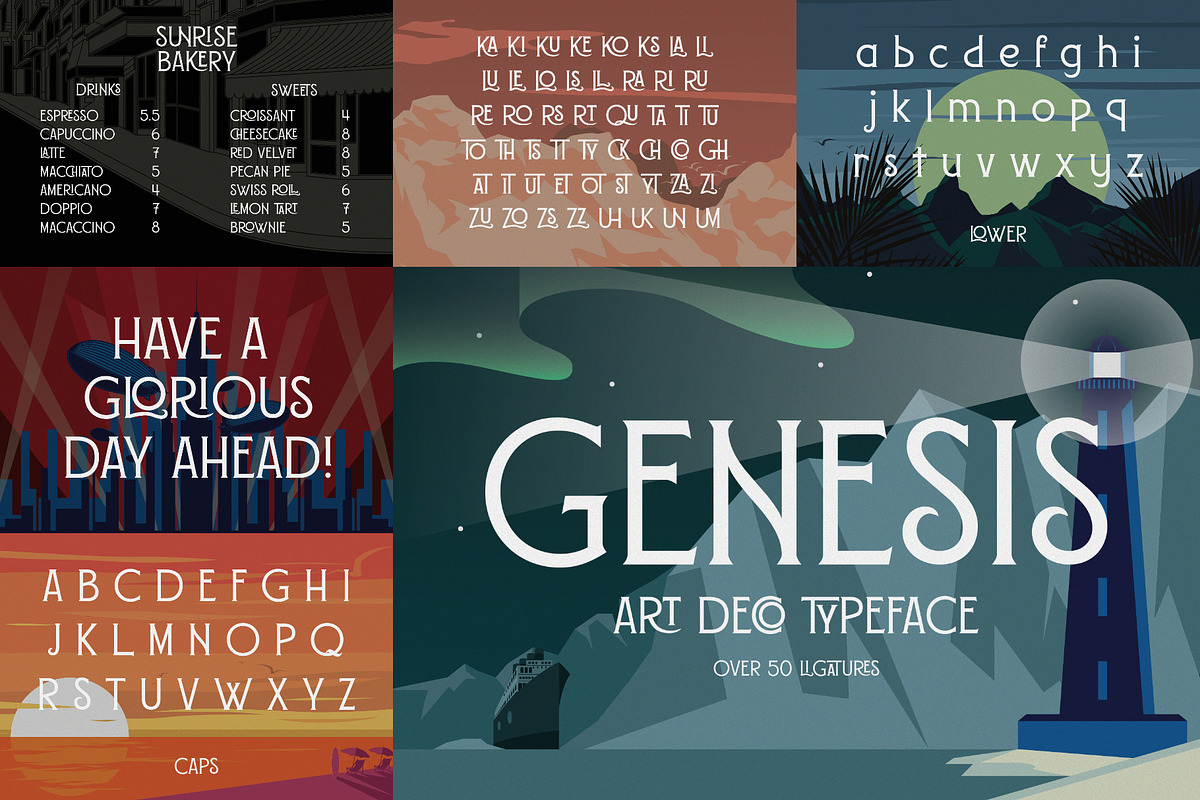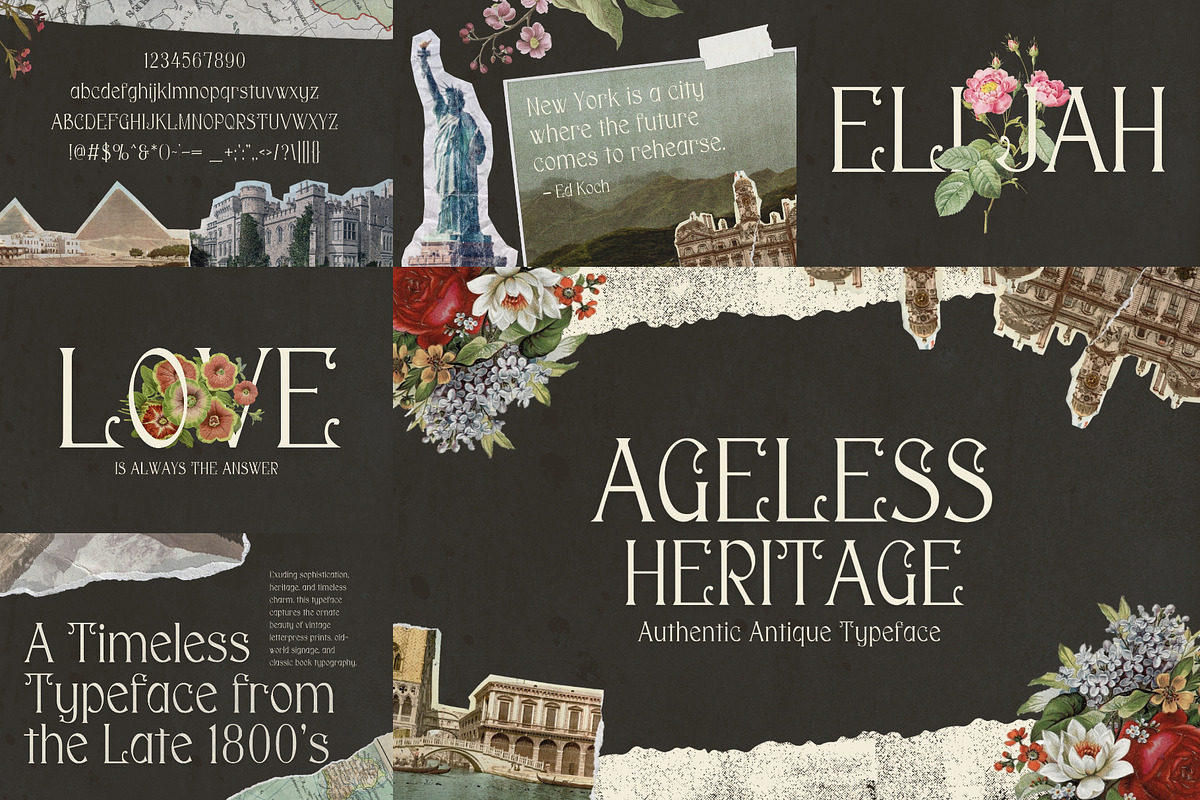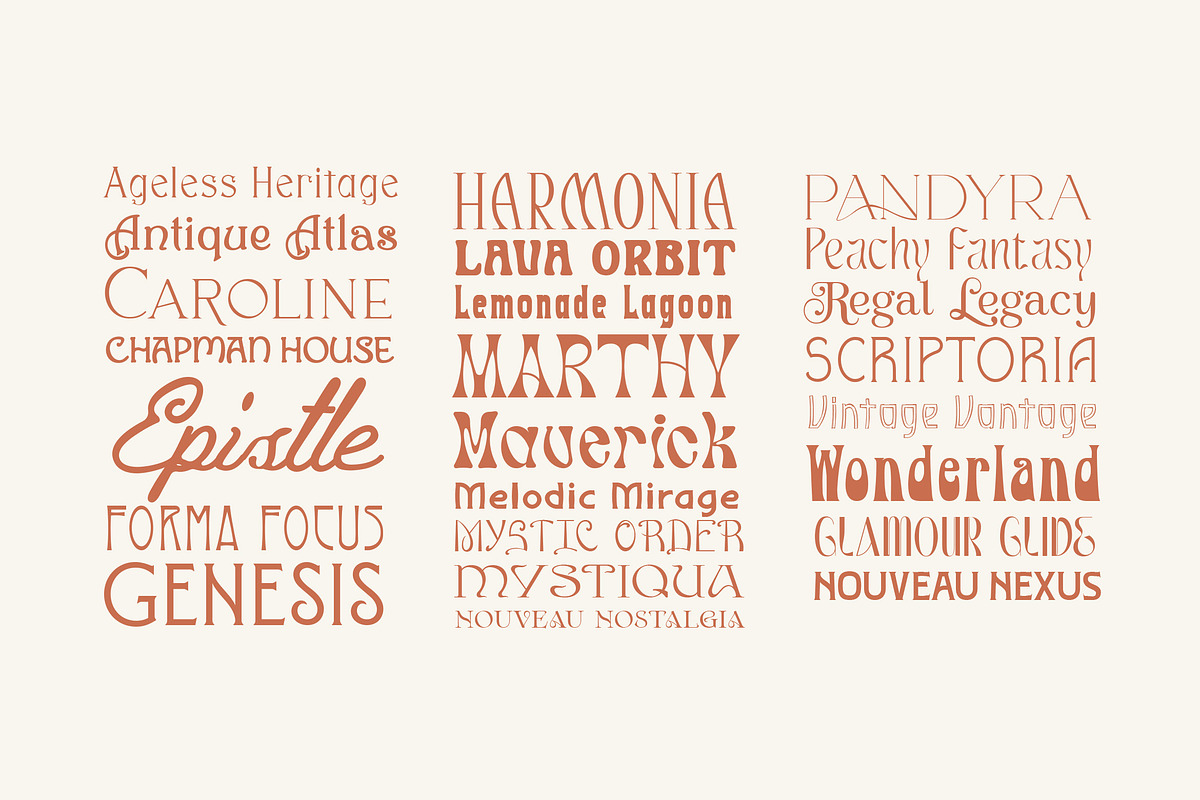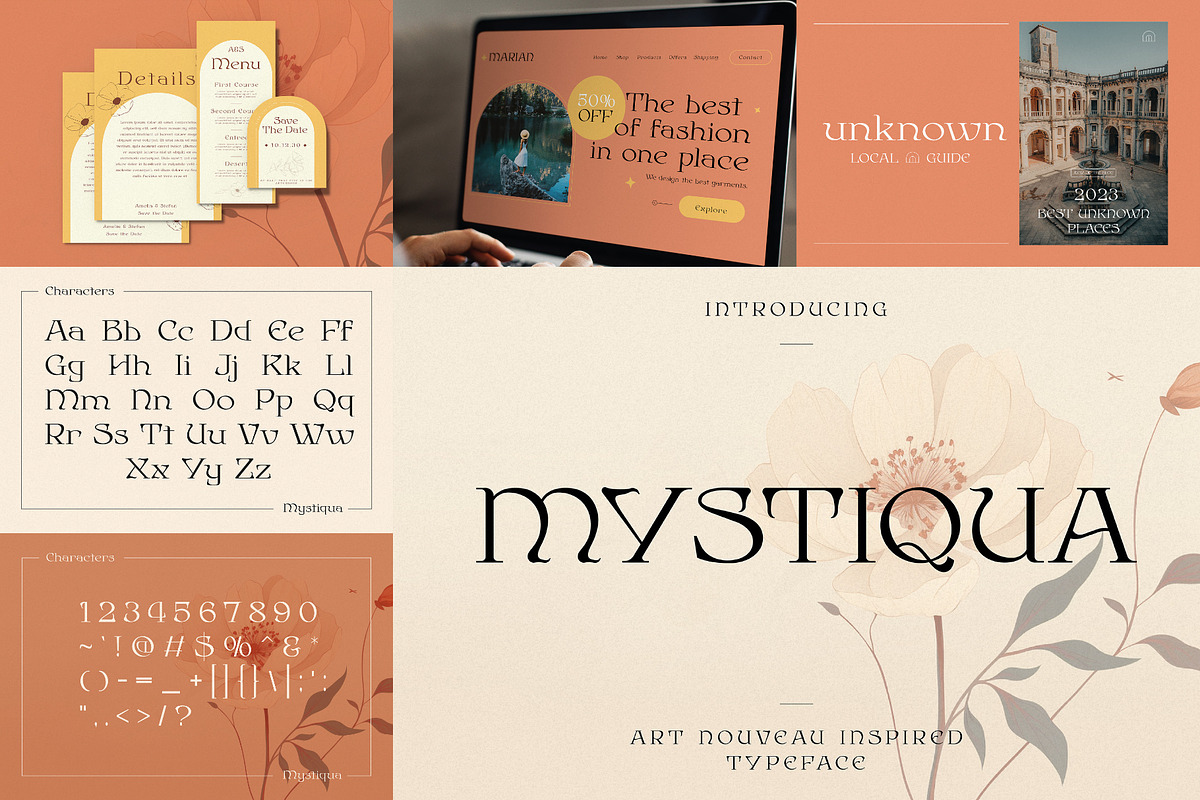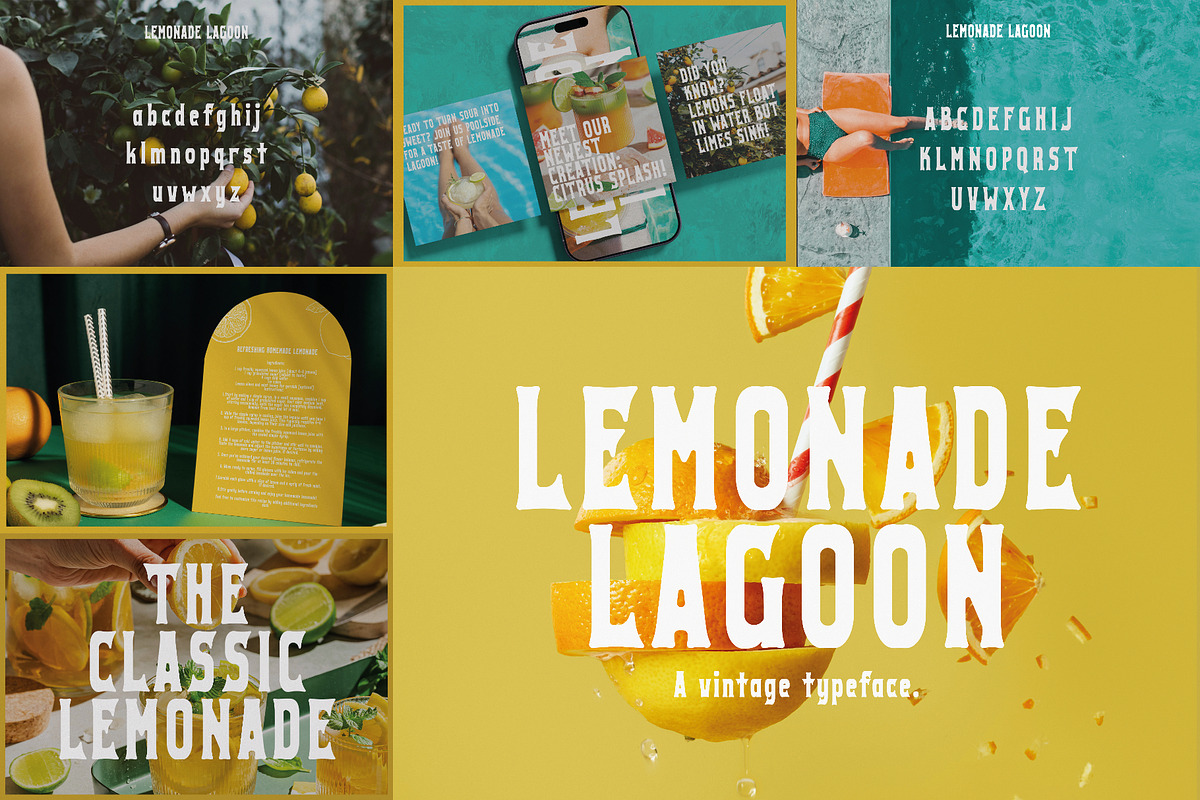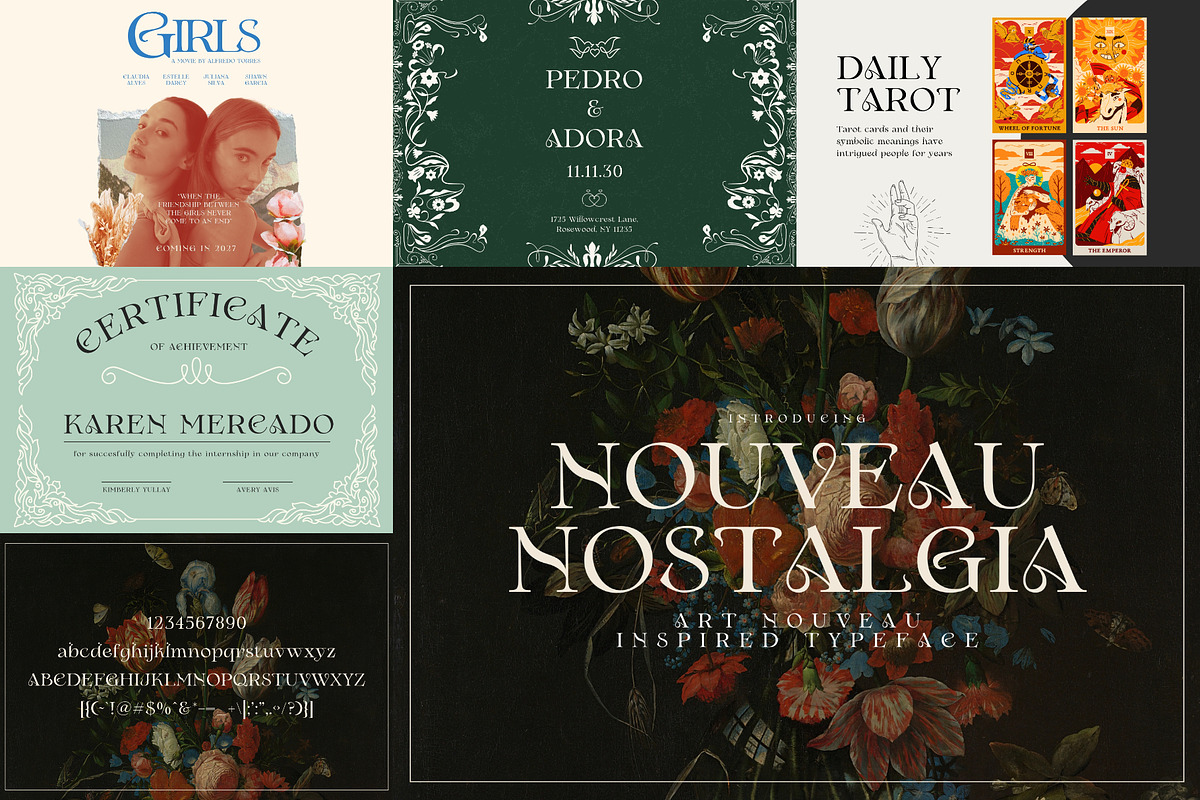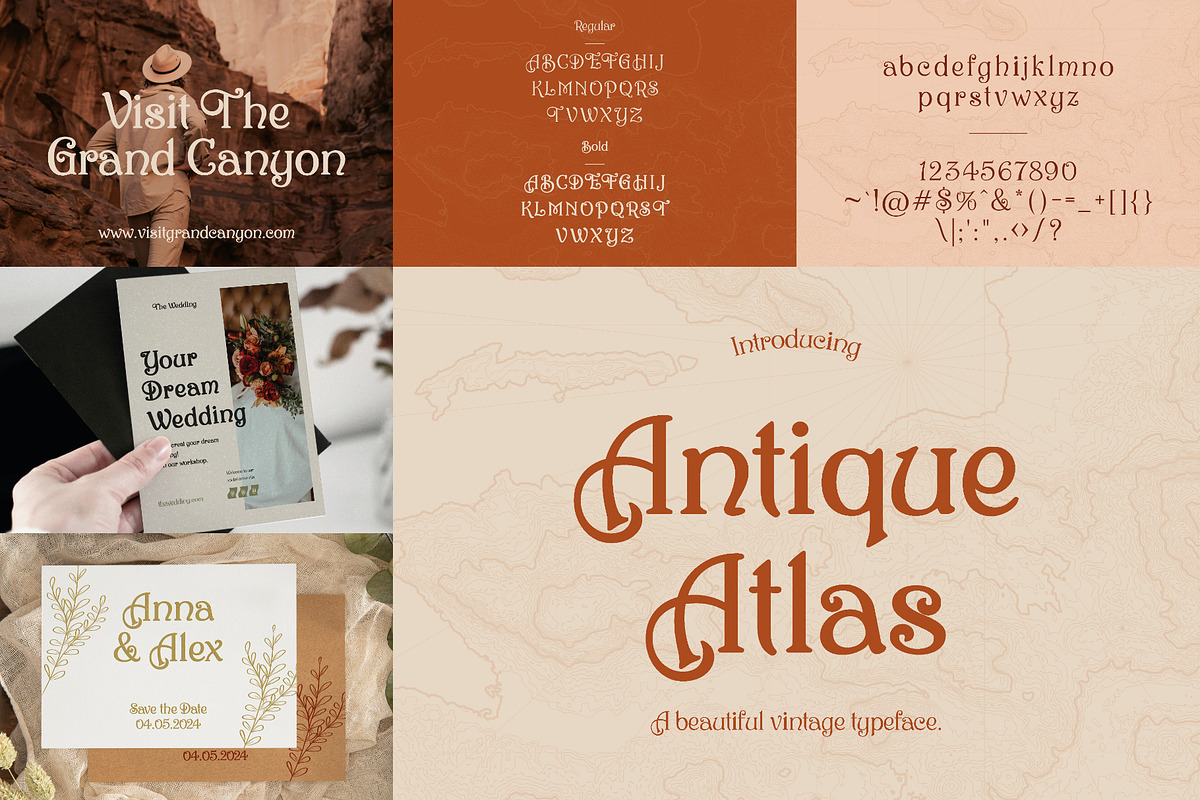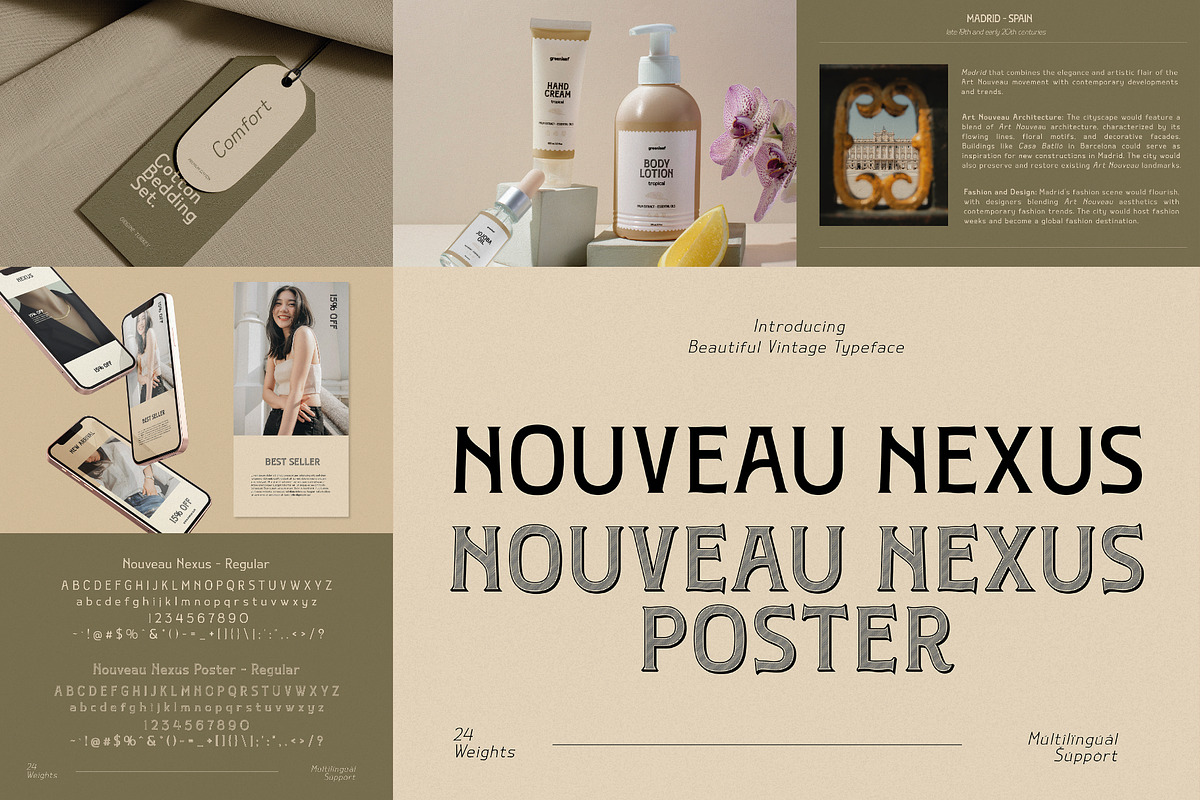
Art Nouveau Font Bundle – 28 Fonts!
Step into the enchanting world of flowing lines, floral flourishes, and vintage elegance with the Art Nouveau Font Bundle. A curated collection of 28 stunning typefaces inspired by the golden age of Art Nouveau design.
This exquisite bundle celebrates the ornamental beauty of the late 19th and early 20th centuries, where art and typography merged into something truly magical. From romantic scripts to bold decorative serifs, each font is crafted to evoke the grace, whimsy, and opulence of this iconic movement.
Whether you're designing wedding invitations, product packaging, logos, posters, or book covers, this bundle will infuse your work with timeless charm and artistic sophistication.
- 28 premium fonts with distinctive Art Nouveau flair
- A wide variety of styles: elegant scripts, ornate serifs, vintage display fonts, and more
- Perfect for branding, editorial layouts, and creative projects
Bring the romance of a bygone era into your modern-day designs with the Art Nouveau Font Bundle, where classic beauty meets creative possibility.